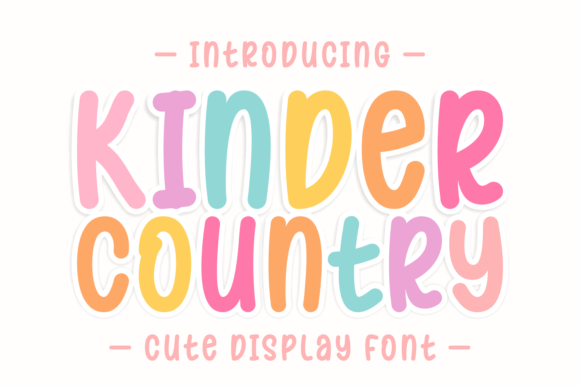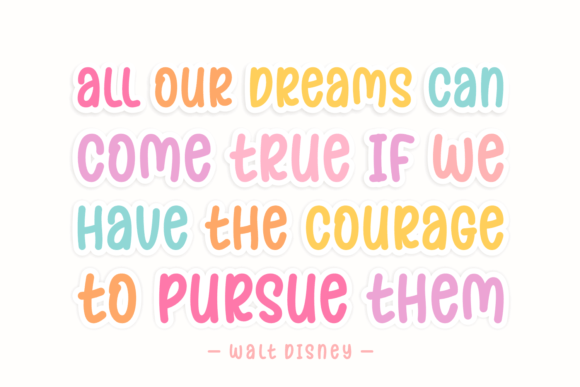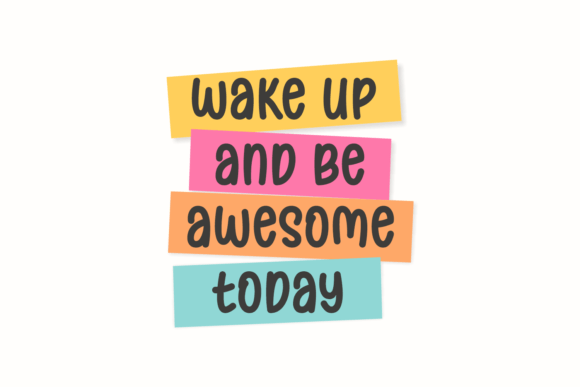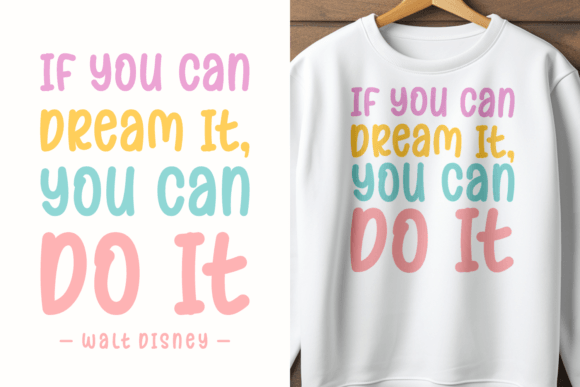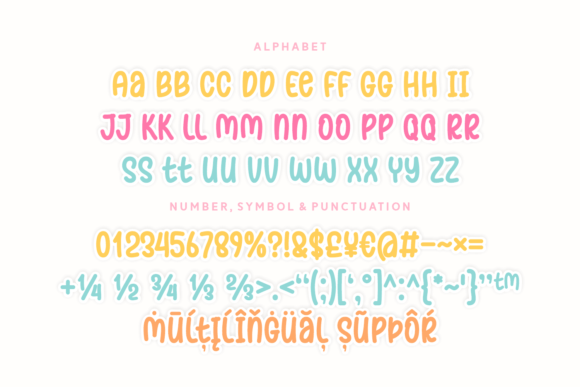
The Delightful Charm of Kinder Country Font
Have you ever stumbled upon a font that instantly sparks a creative idea? For designers, this moment is pure magic – a chance to bring a concept to life with the perfect typography. I recall a project where I needed a font that captured the whimsy of a children’s book. As I browsed through various fonts, one caught my eye: Kinder Country Font. Its playful and heartwarming design seemed to embody the essence of childhood wonder.
Kinder Country Font is a display font that’s tailor-made for designers who want to add a touch of joy and whimsy to their projects. Whether you’re creating cartoon-inspired designs, children’s games, or simply want to inject some love into your work, this font is a fabulous choice. With its quirky charm, Kinder Country Font effortlessly brings your ideas to life, making it a valuable asset for any designer’s toolkit.
Kinder Country Font Key Features
- Unique Characteristics: Kinder Country Font features a playful, whimsical design with rounded edges and organic shapes, making it perfect for children’s books, educational materials, and family-friendly content.
- Font Weight: Kinder Country Font is available in regular and bold weights, allowing for flexibility in design and layout.
Kinder Country Font Review
I recently had the chance to work with Kinder Country Font, and I must say it’s a unique choice for designers looking for a playful, whimsical feel. ✨ Here are some aspects where it truly shines:
- Its nostalgic charm instantly adds a touch of warmth and friendliness to any design project.
- The font’s versatility allows it to be used for various purposes, from children’s books to advertising campaigns.
- Kinder Country Font’s irregular shapes and letterforms bring a sense of personality to text, making it perfect for hand-drawn or illustrated designs.
- The font’s bold weight can become overwhelming if overused, which may affect readability.
- Some letterforms may be difficult to read, especially at smaller font sizes.
- The font’s lack of a clear, defined style may make it challenging to pair with other fonts.
Overall, Kinder Country Font is a great choice for designers who want to add a touch of playfulness and whimsy to their projects. While it may have some limitations, its unique charm and versatility make it a valuable addition to any designer’s toolkit.
Use Kinder Country Font for playful and whimsical designs, such as children’s book covers, party invitations, and educational materials. To get the most out of this font, use it in combination with other playful fonts and graphics. Experiment with different font sizes, colors, and styles to create visually appealing designs.
Kinder Country Font is ideal for:
- Children’s book covers and illustrations
- Educational materials and worksheets
- Brand logos and identity designs
Alternatives to Kinder Country Font